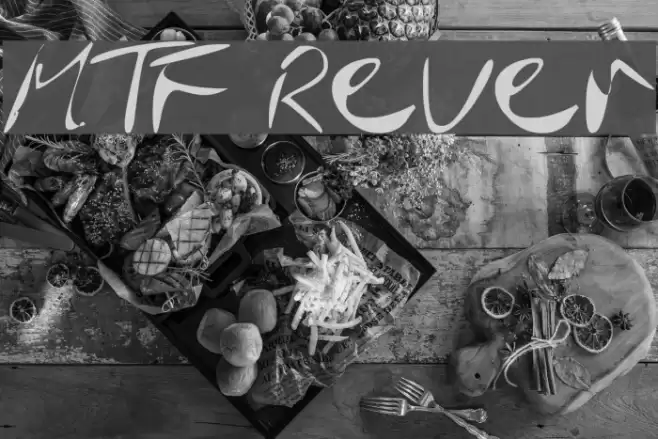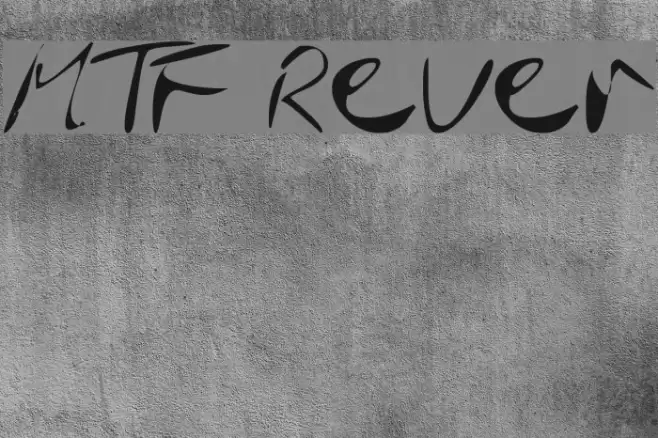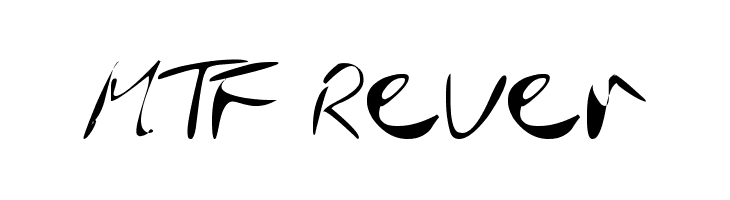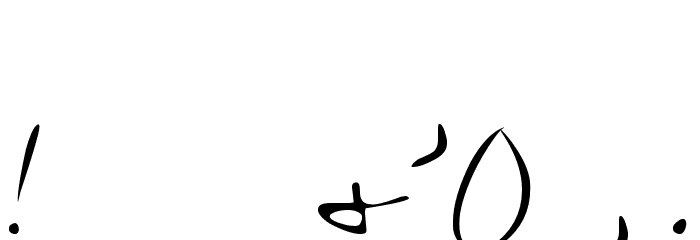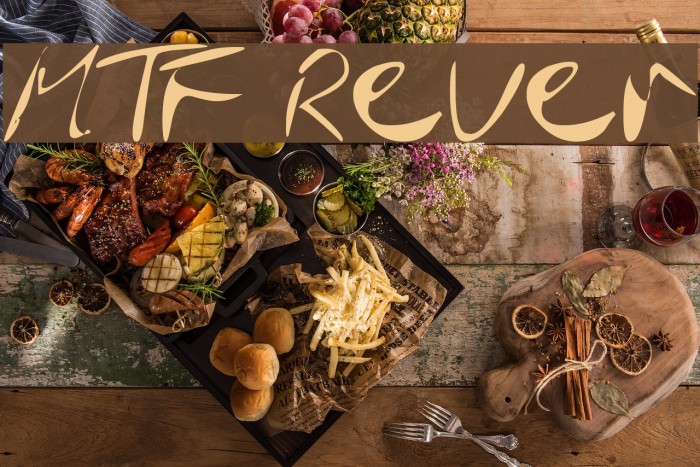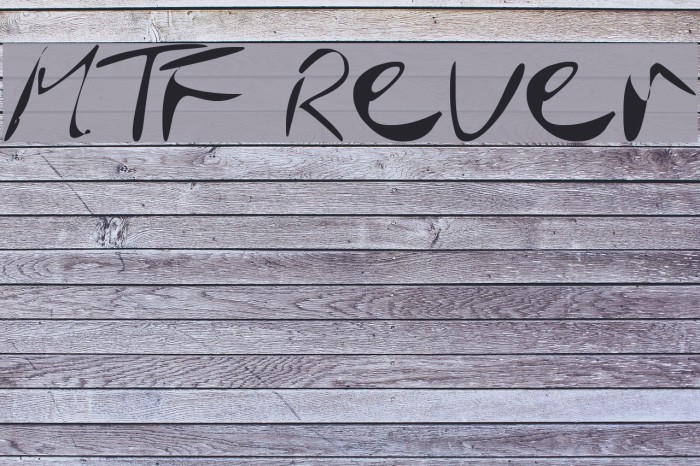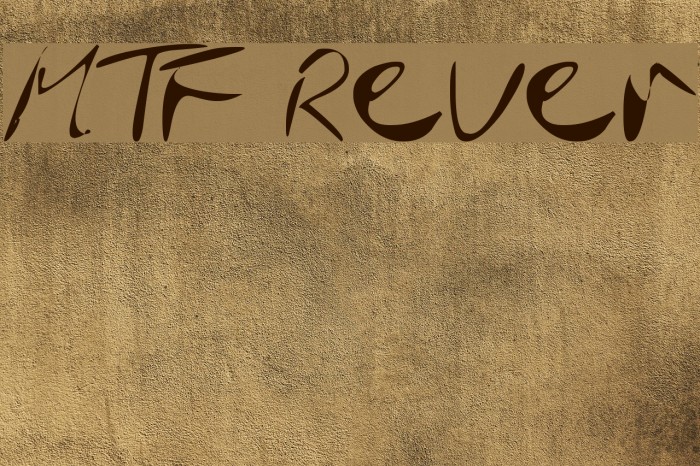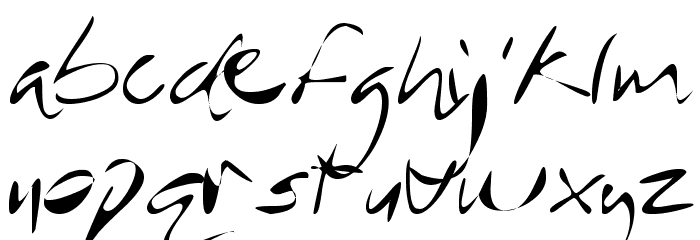
MTF Rever Font
MTF Rever Description
This font exhibits a dynamic and expressive style, characterized by its fluid, brush-like strokes that convey a sense of movement and energy. The uppercase and lowercase letters are crafted with a calligraphic flair, featuring varying stroke widths that add depth and interest. The characters are slightly slanted, enhancing the handwritten feel, while maintaining legibility. The special characters complement the overall aesthetic, providing a cohesive look. This font is ideal for projects that require a personal touch or artistic expression.
A dynamic, brush-style font with expressive, calligraphic strokes from Handwritten fonts.
- Proposed Projects: Ideal for artistic projects, invitations, branding, and expressive design work.
- Use Case: Logos, Invitations, Artistic projects